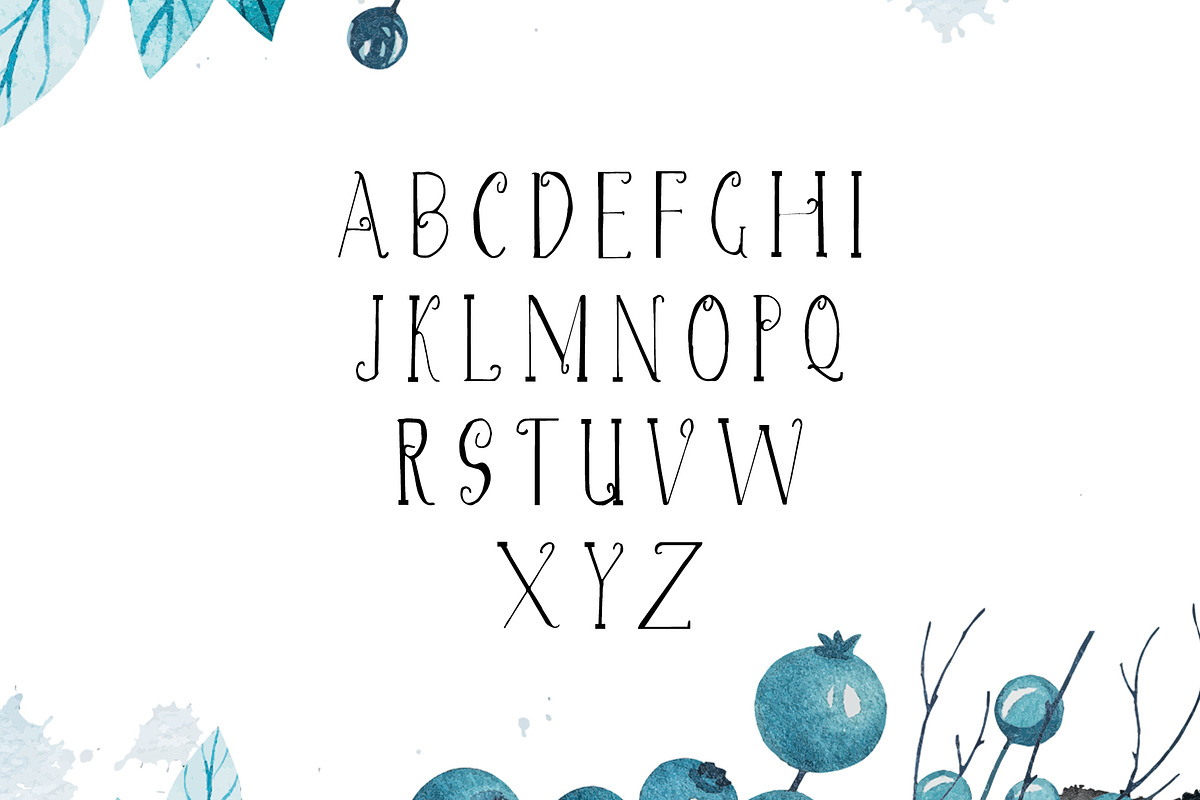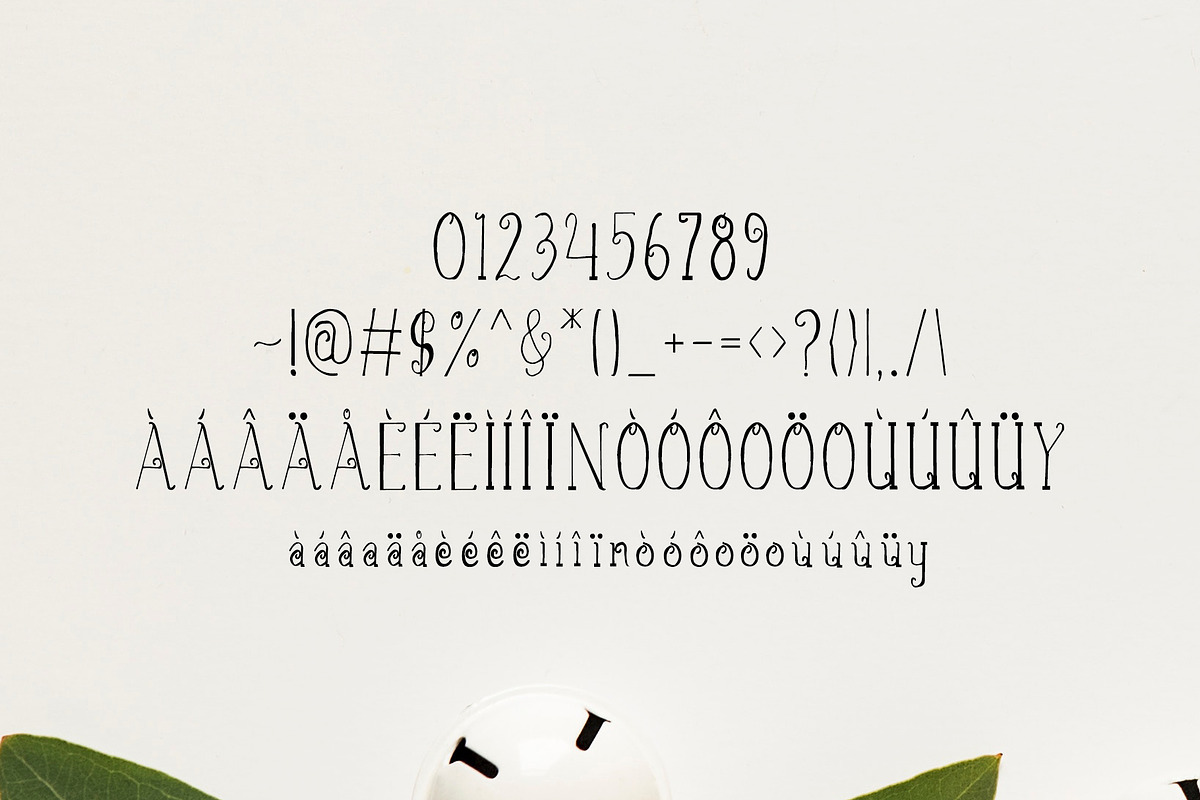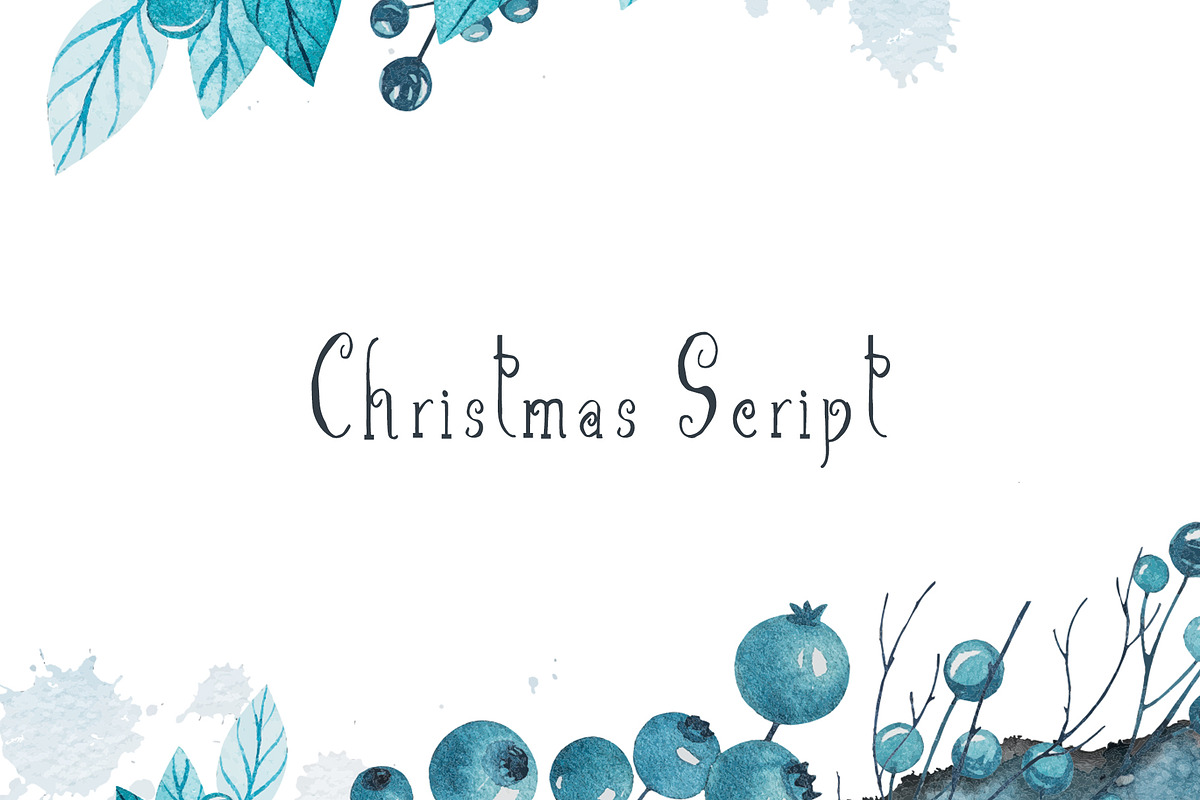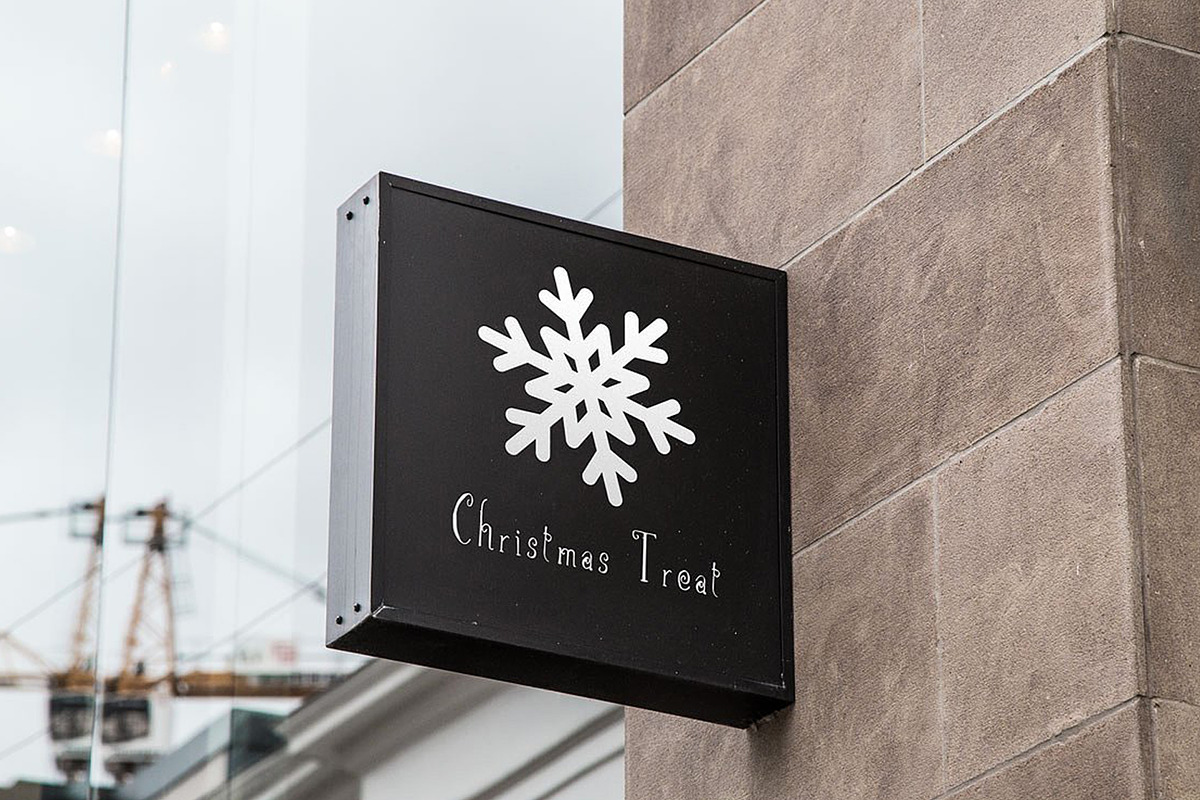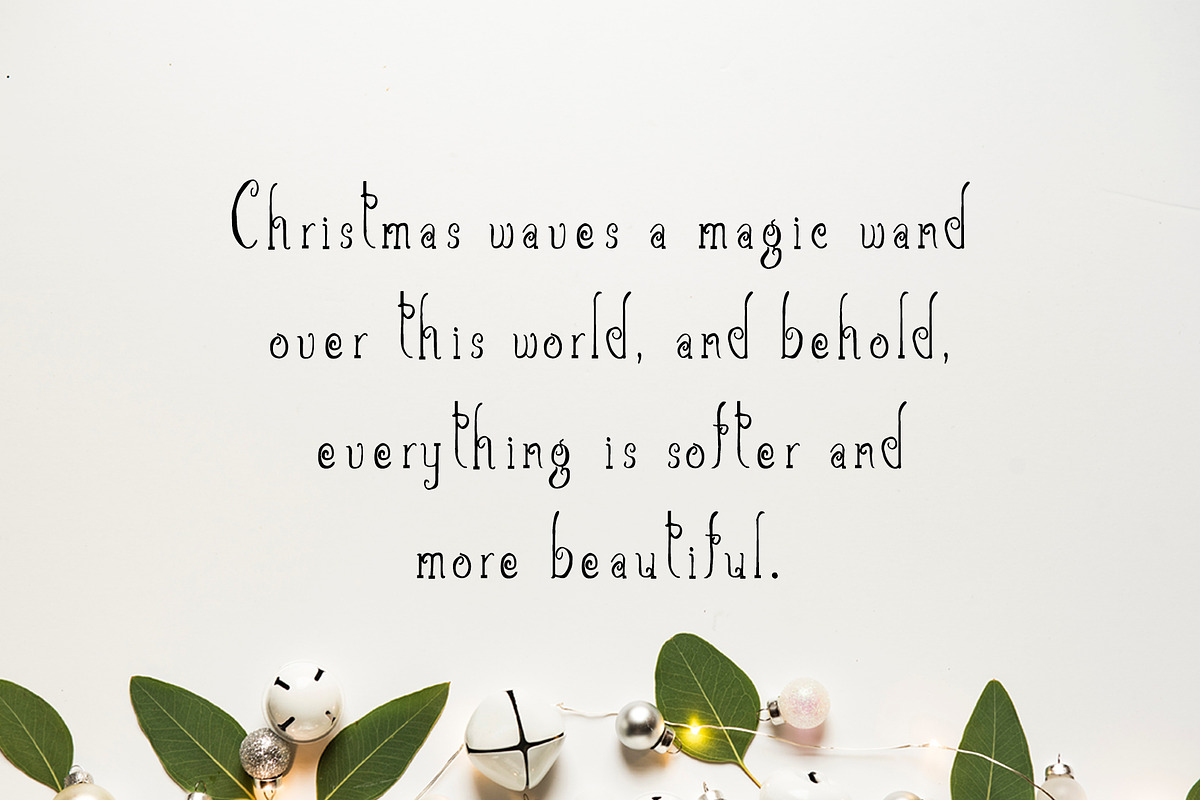
Christmas Script Font
Christmas Script Font by Creativetacos is a font selected for branding, posters, packaging, typography.
- Included in the pack is uppercase and lowercase with numbers and some special characters for you to add authenticity to your designs This fo
- Great for cards, invitations, t-shirts, logos, quotes, apparel, advertising, image overlays, greeting cards, web banners, and branding Inclu
- Font Weight: Regular
- Uppercase Multilingual Letters
- Lowercase Multilingual Letters
- Numbers & Punctuation
- Support Multilingual
- Christmas Script Regular
Why Christmas Script Font is worth a look
Christmas Script Font by Creativetacos fits naturally into Branding, posters, packaging, typography.